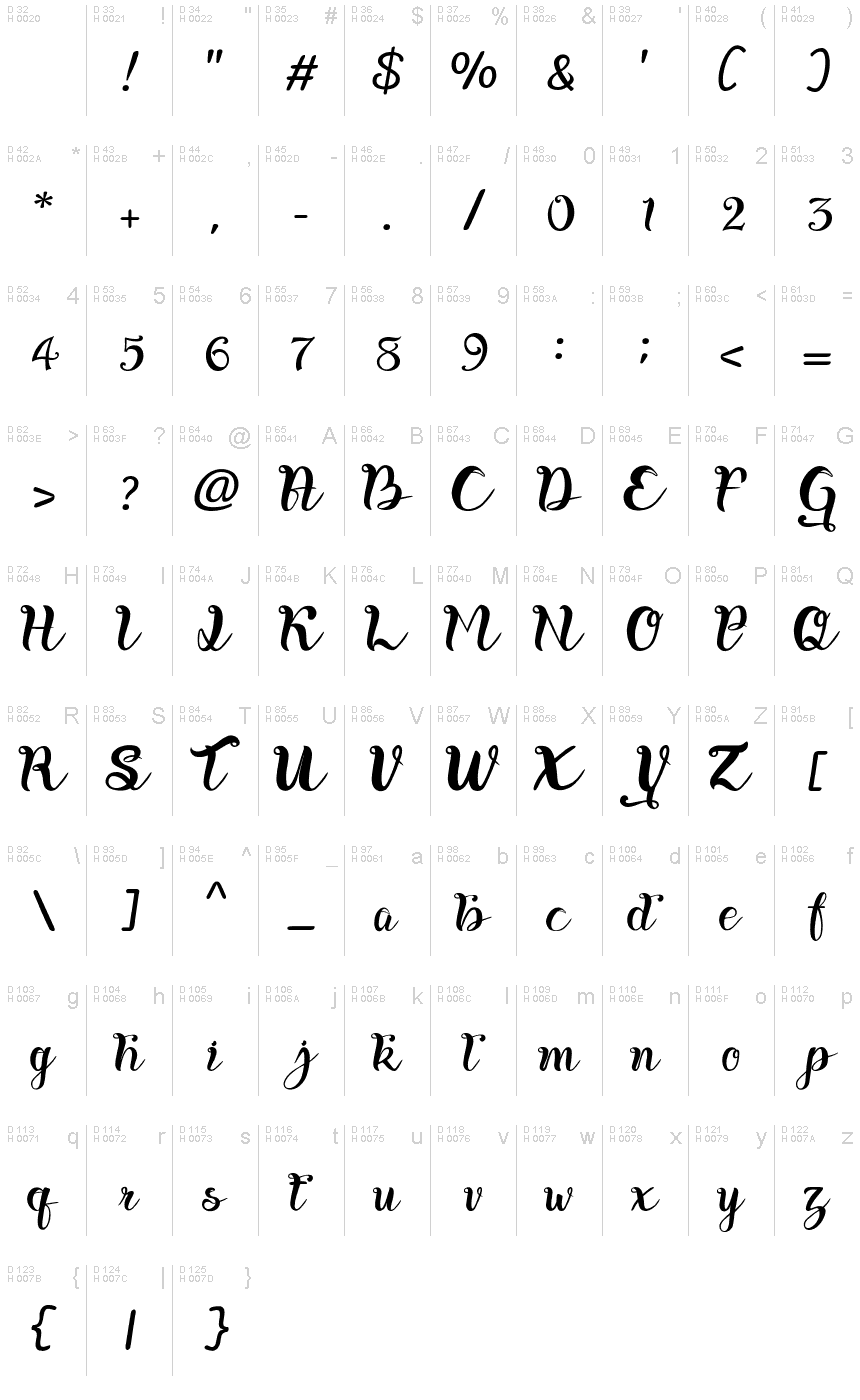
Wellys
Wellys, designed by Ronny Studio, is a modern script font with a semi-bold weight. Its smooth brush strokes give it a contemporary feel, making it perfect for bold and eye-catching designs.
With its elegant curves and fluid lines, Wellys adds sophistication to wedding invitations, greeting cards, and branding projects. Its versatility extends to fashion magazines, beauty products packaging, and lifestyle blogs. Whether used for logos or social media graphics, Wellys effortlessly captures attention with its stylish and expressive form.